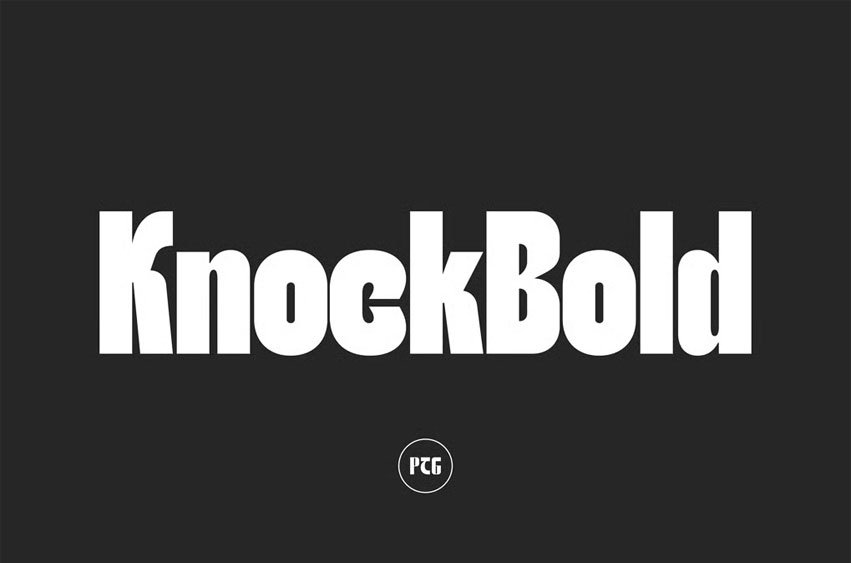
Knockbold’s font has a unique and attractive appearance. Knockbold looks great when combined with solid character fonts.
For branding projects, logos, wedding designs, social media posts, advertisements, product packaging, product designs, labels, photography, watermarks, invitations, stationery, and anything that requires a handwritten touch, Knockbold is perfect.